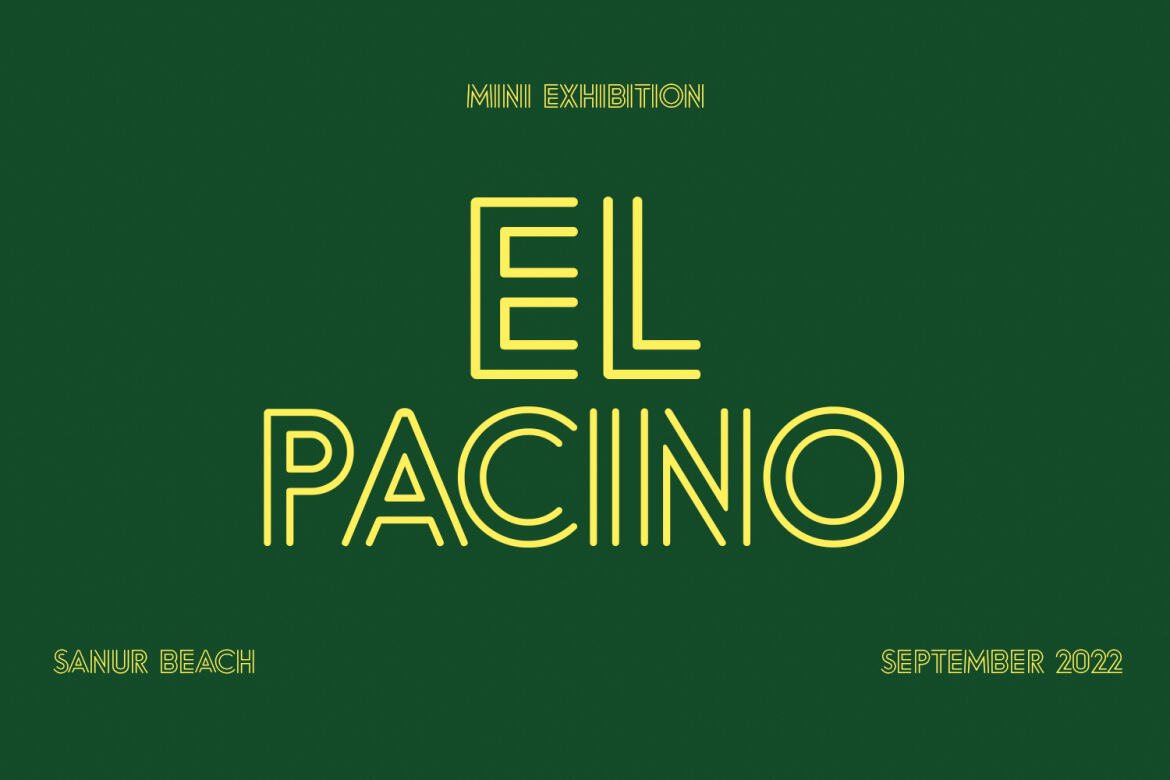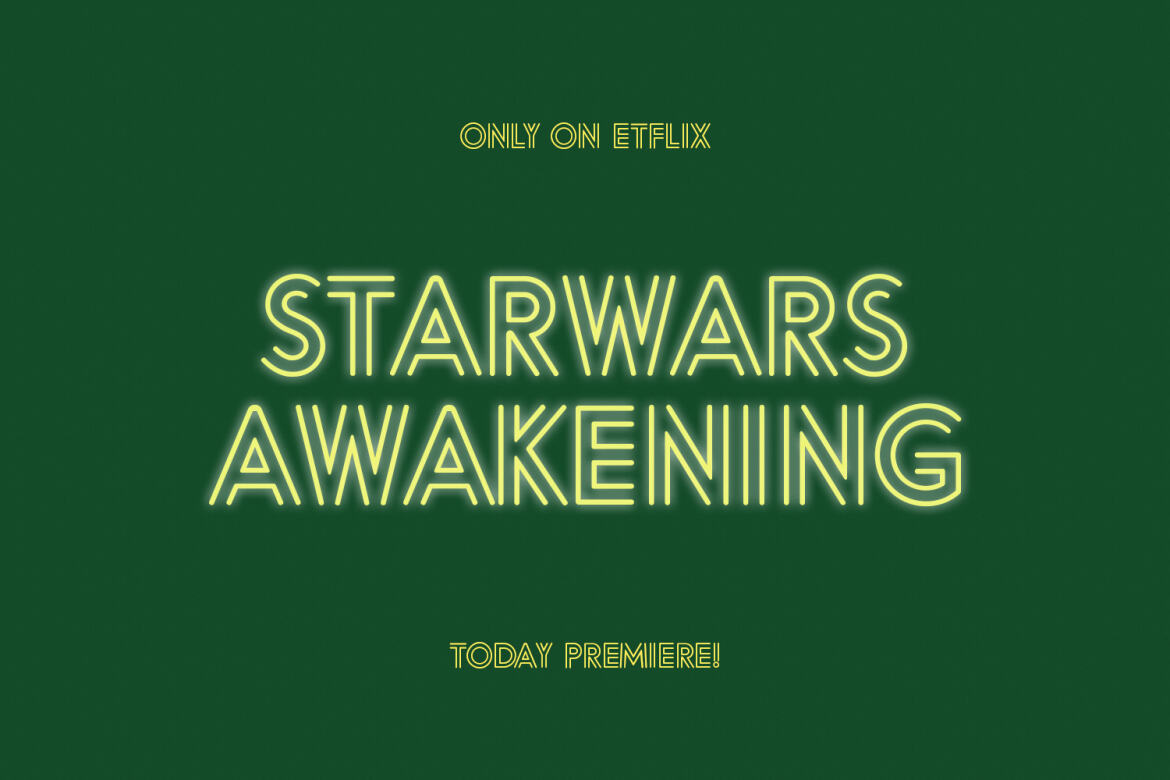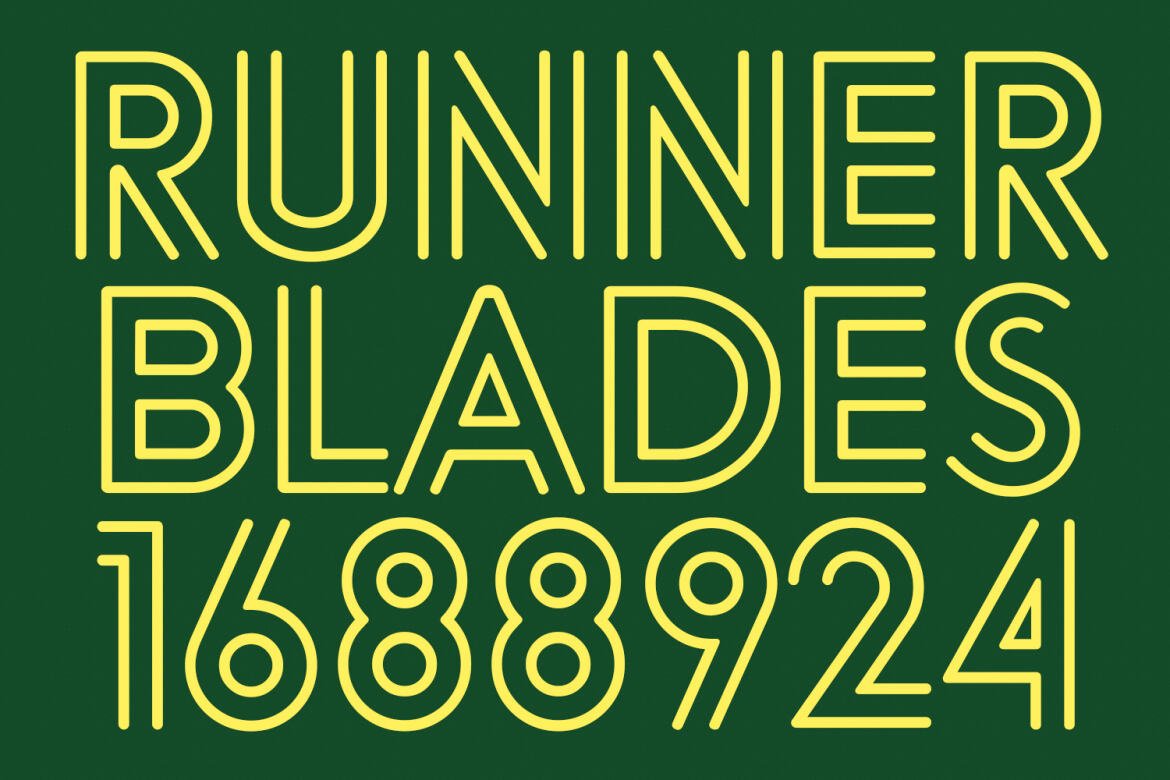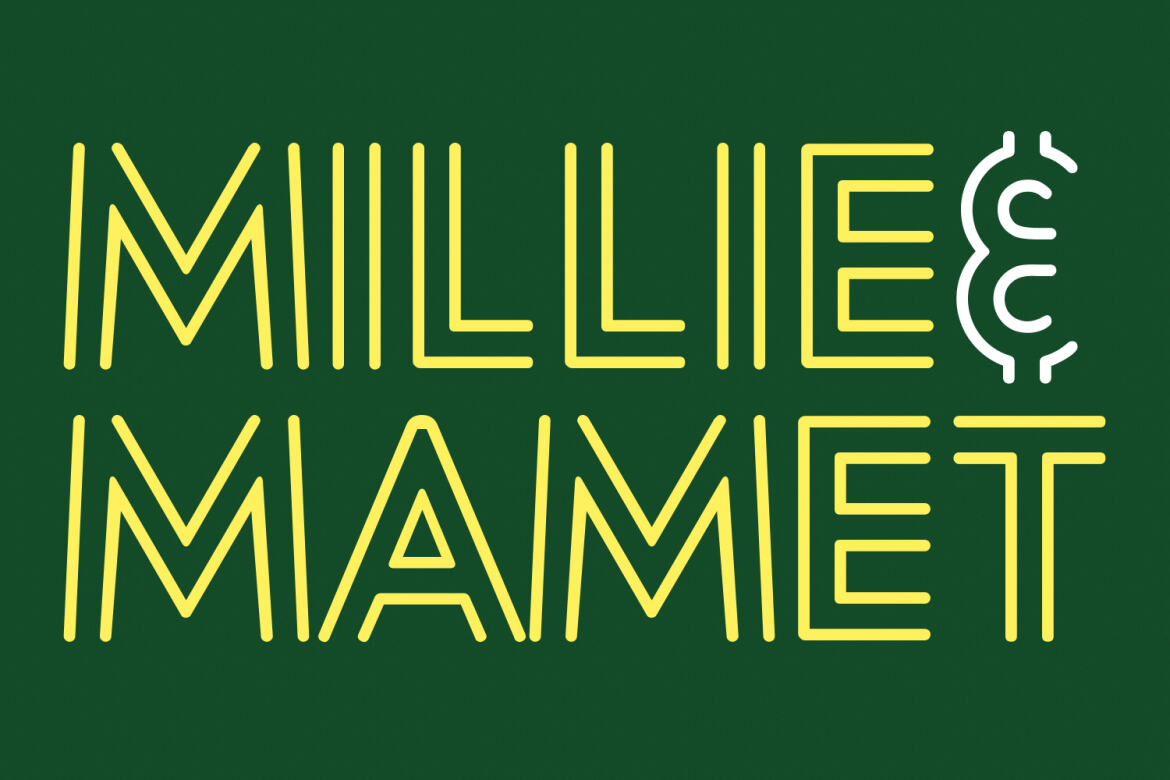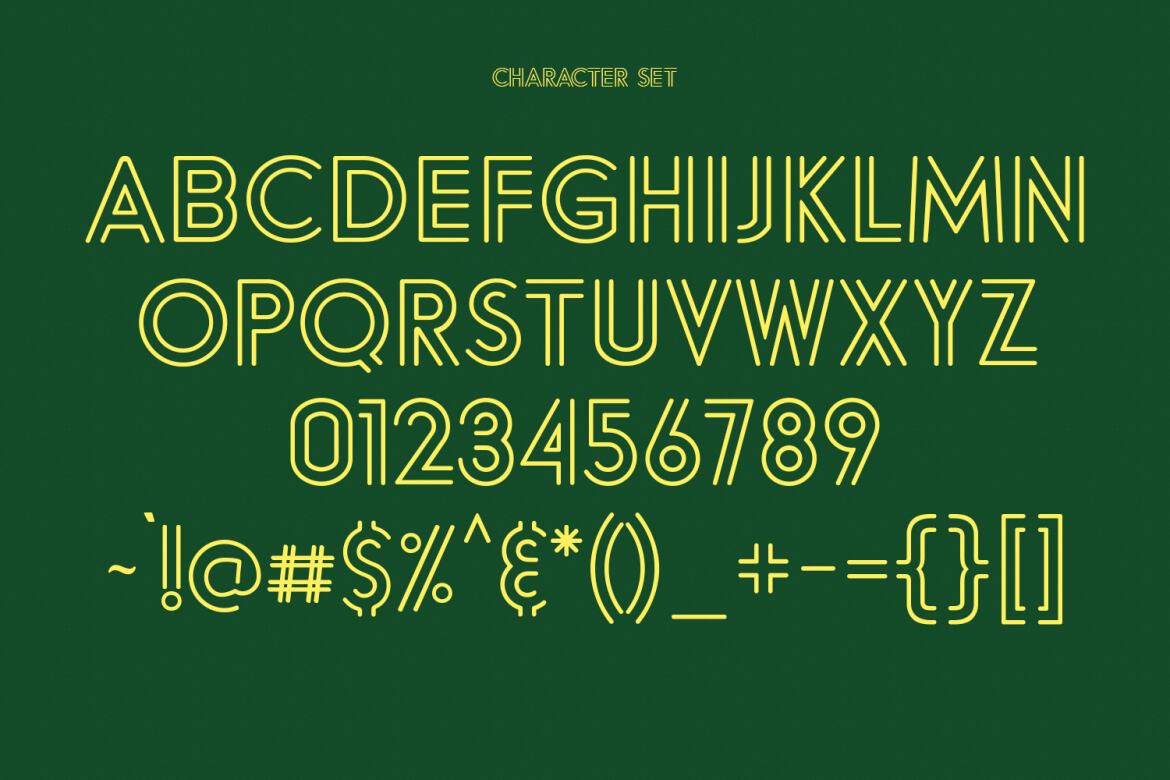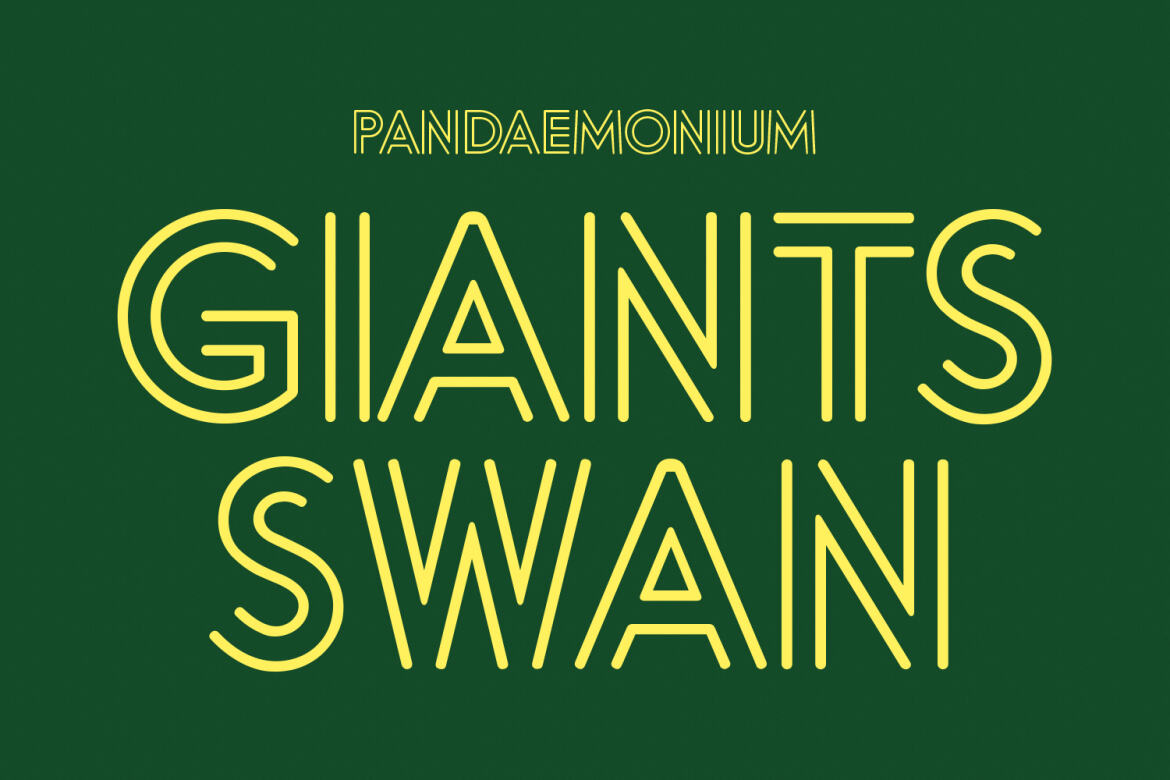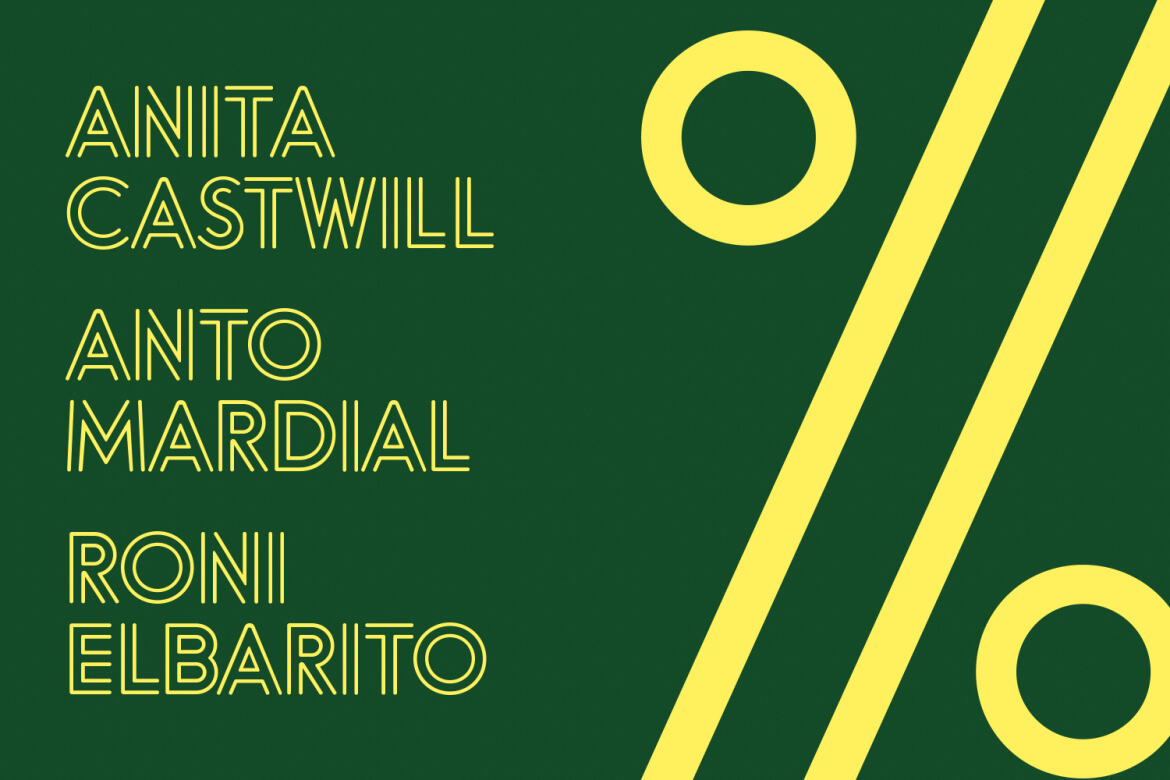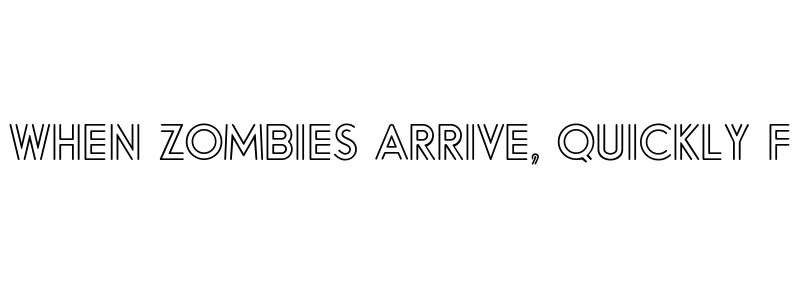
Merchons Sans FREE Display Font
Merchons
Merchons is a fancy line style Display sans serif font. With two line soft stroke, fun character with a bit of ligatures and alternates. To give you an extra creative work. Merchons font support multilingual more than 100+ language. This font is good for logo design, Social media, Movie Titles, Books Titles, a short text even a long text letter and good for your secondary text font with sans or serif. Make a stunning work with Merchons font.